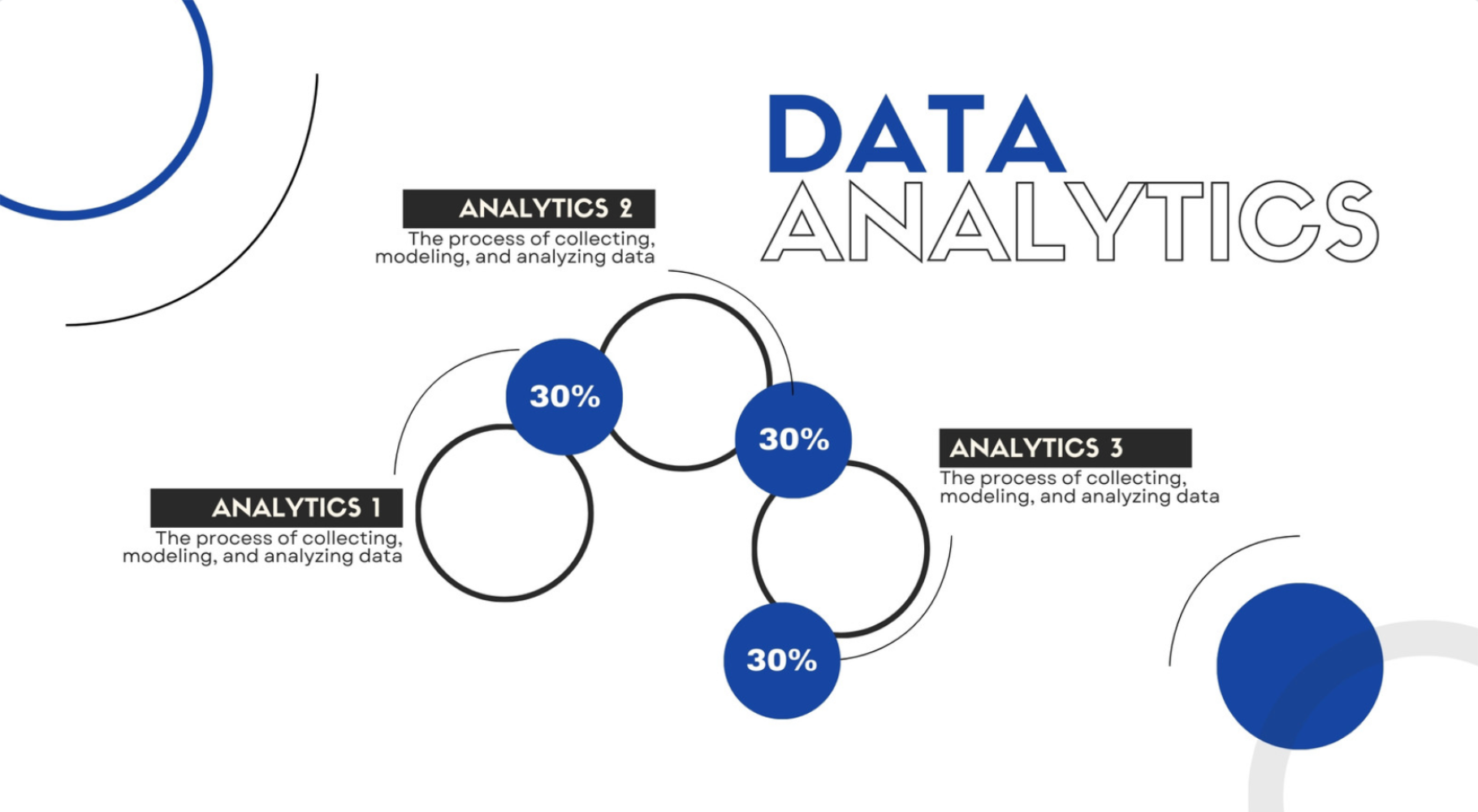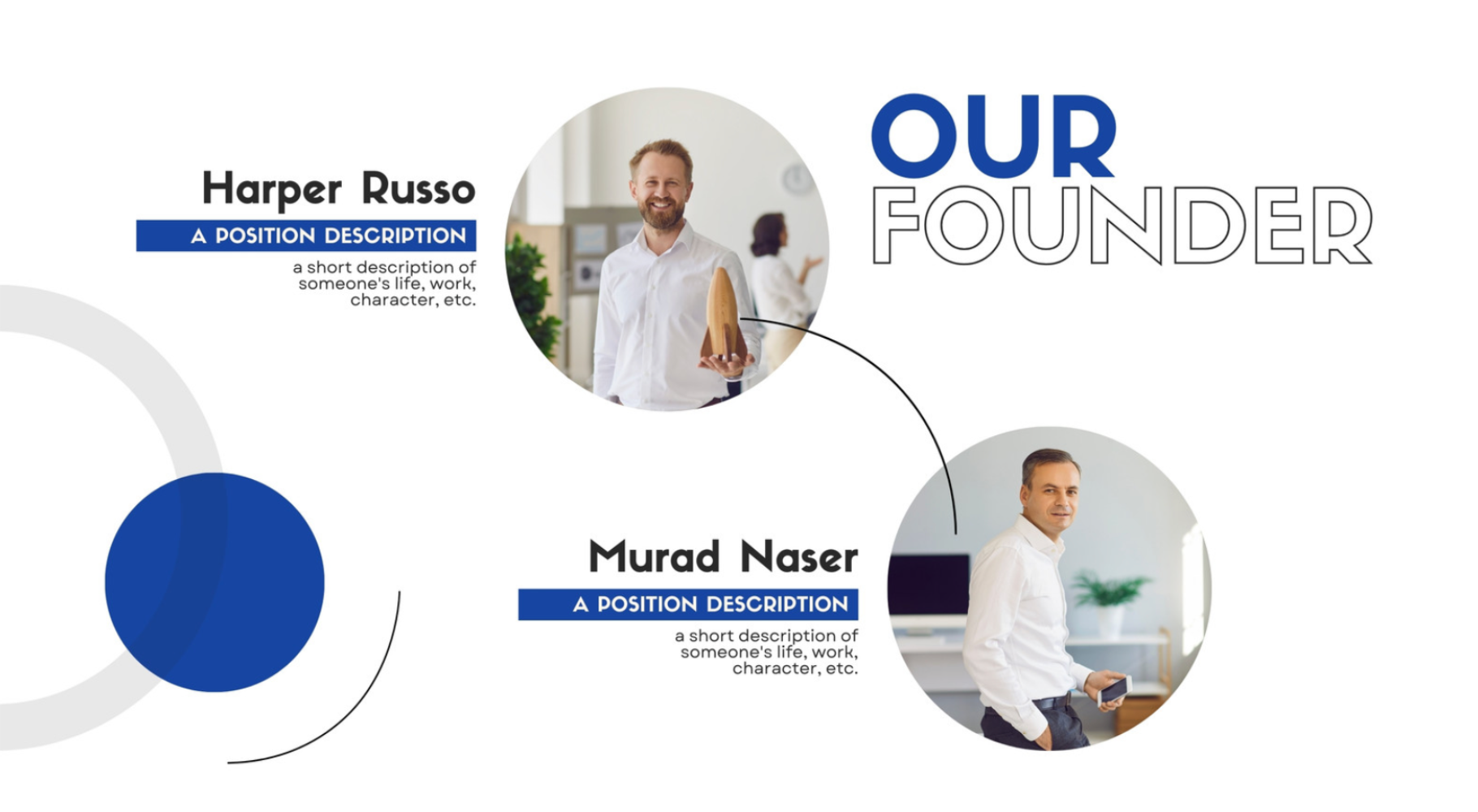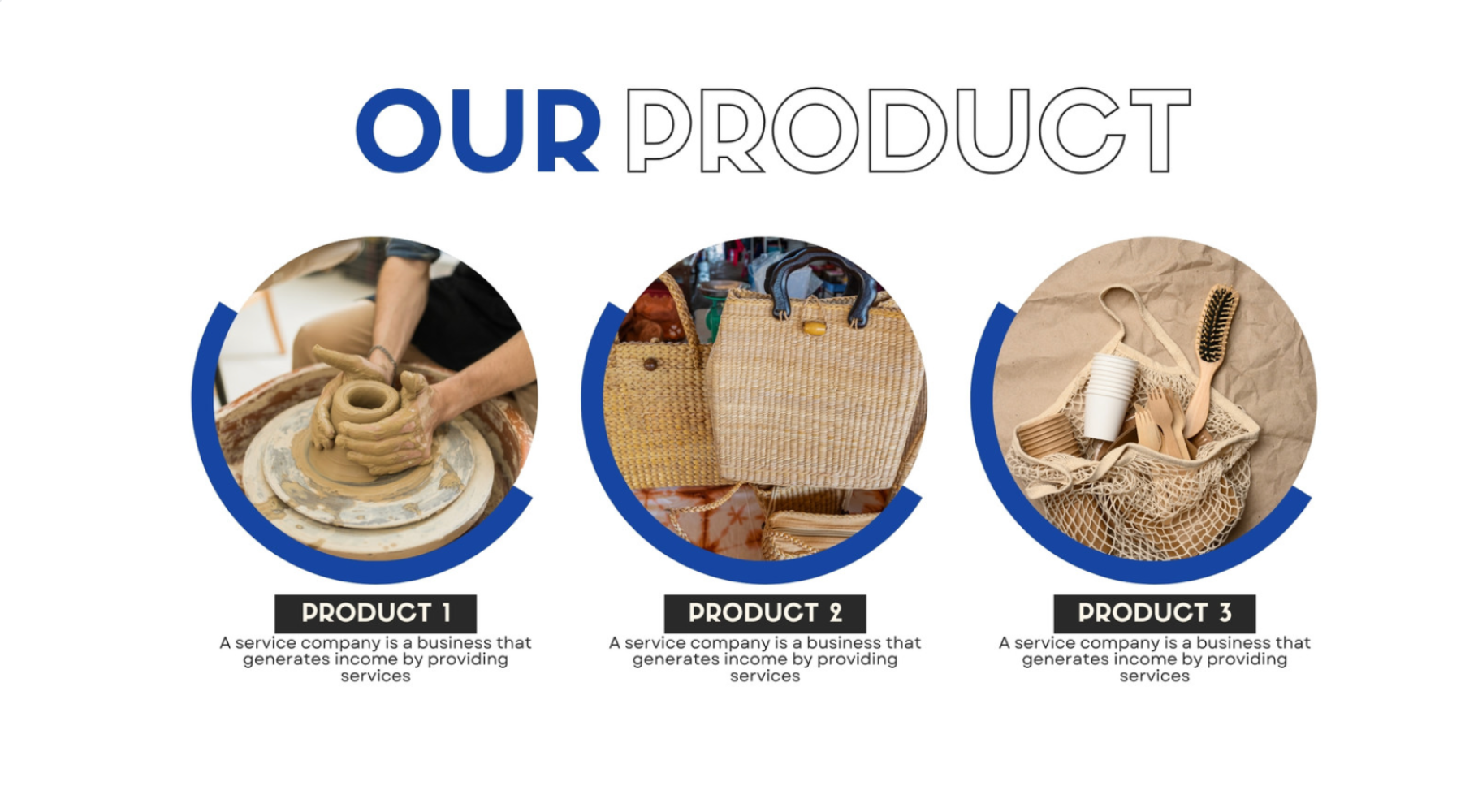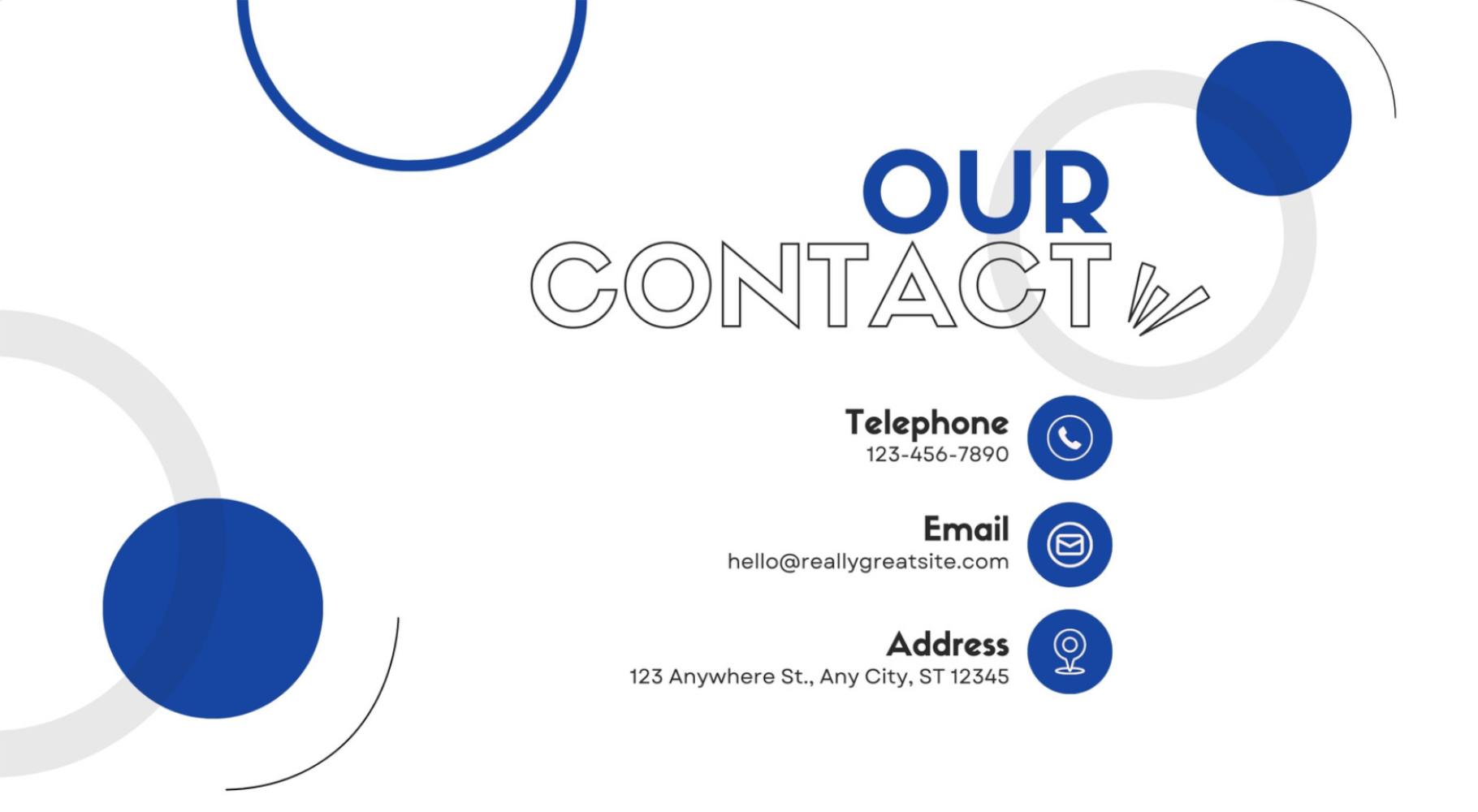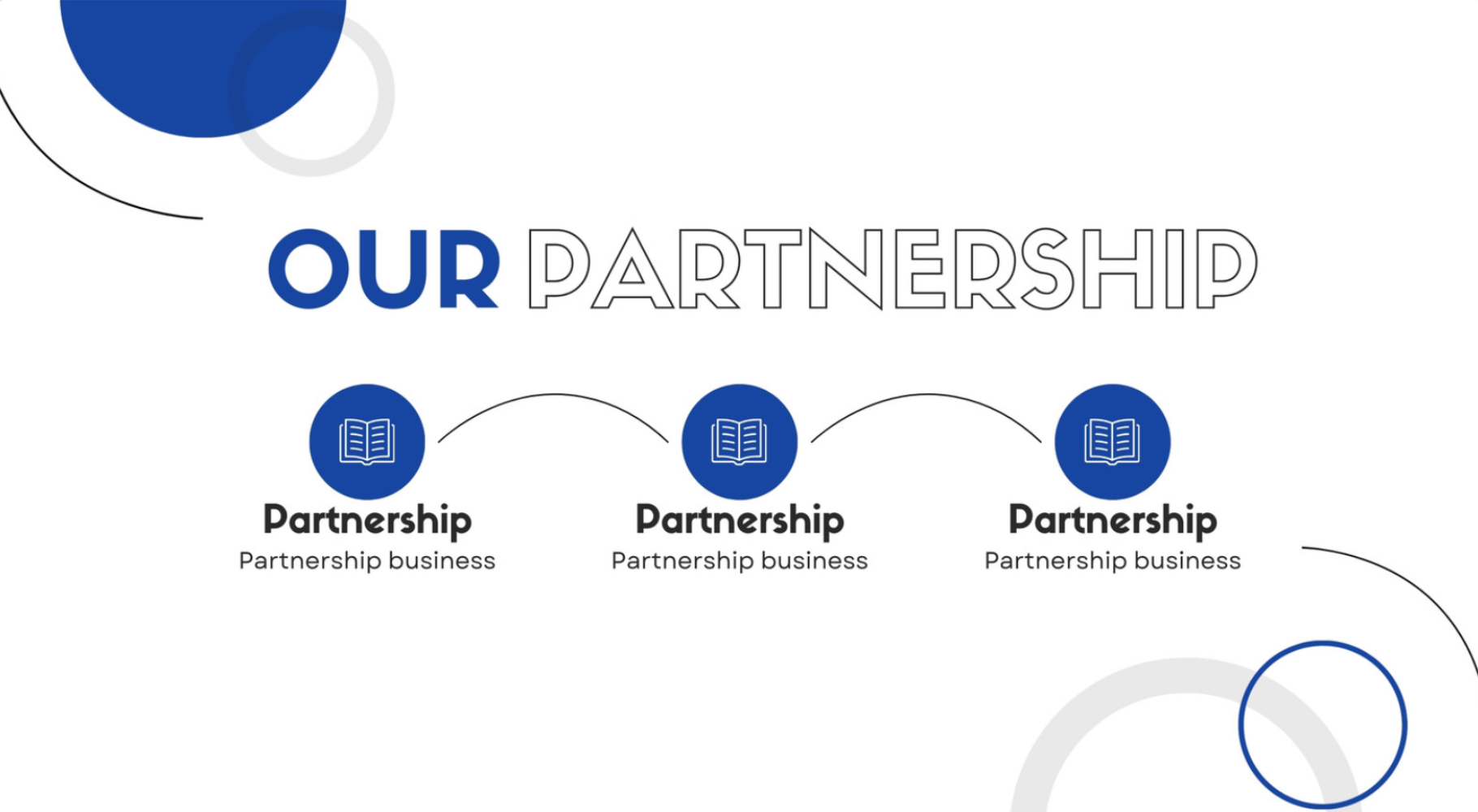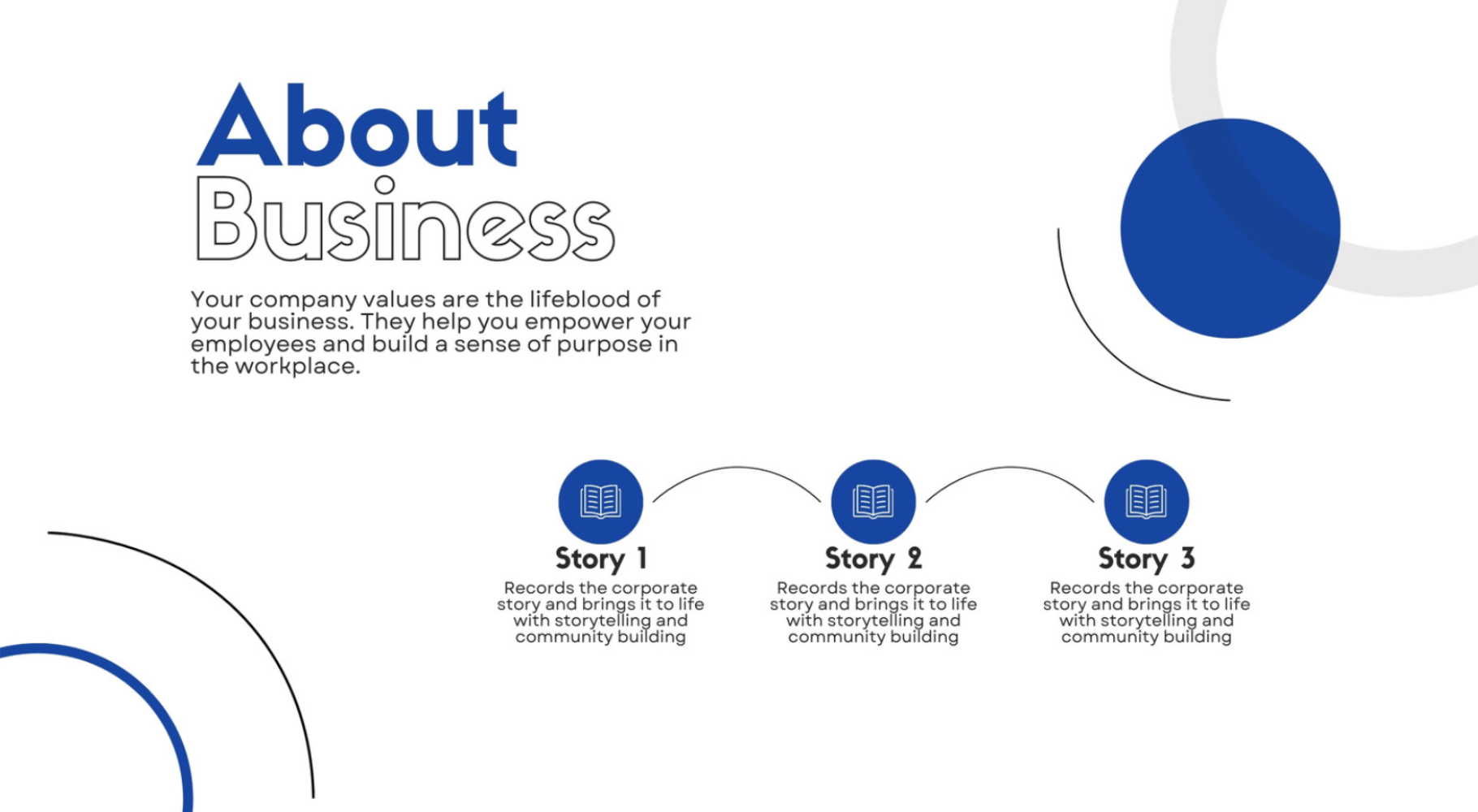
Blue Modern Business Presentation
Make a powerful first impression with this clean, professional business presentation template. Featuring a minimalist blue and white geometric design, it’s perfect for corporate meetings, project proposals, and executive reports. The bold typography and structured layout ensure your message is clear and impactful, helping you communicate complex ideas with absolute visual clarity.